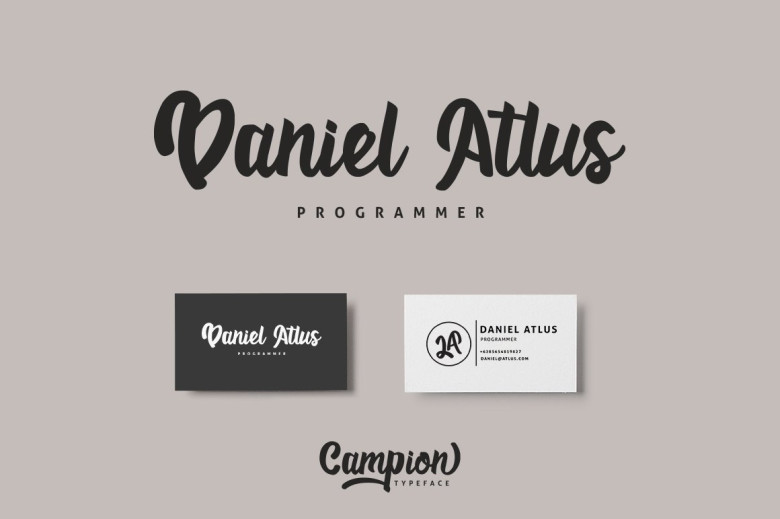
Campio Script Font
Campion Typeface is a stylish script font . Very suitable for greeting cards, branding materials, business cards, quotes, posters, and more!This font are perfect for wedding postcard. Or you can create perfect and unique design of your logo, blog, stationery, marketing, magazines and more ?